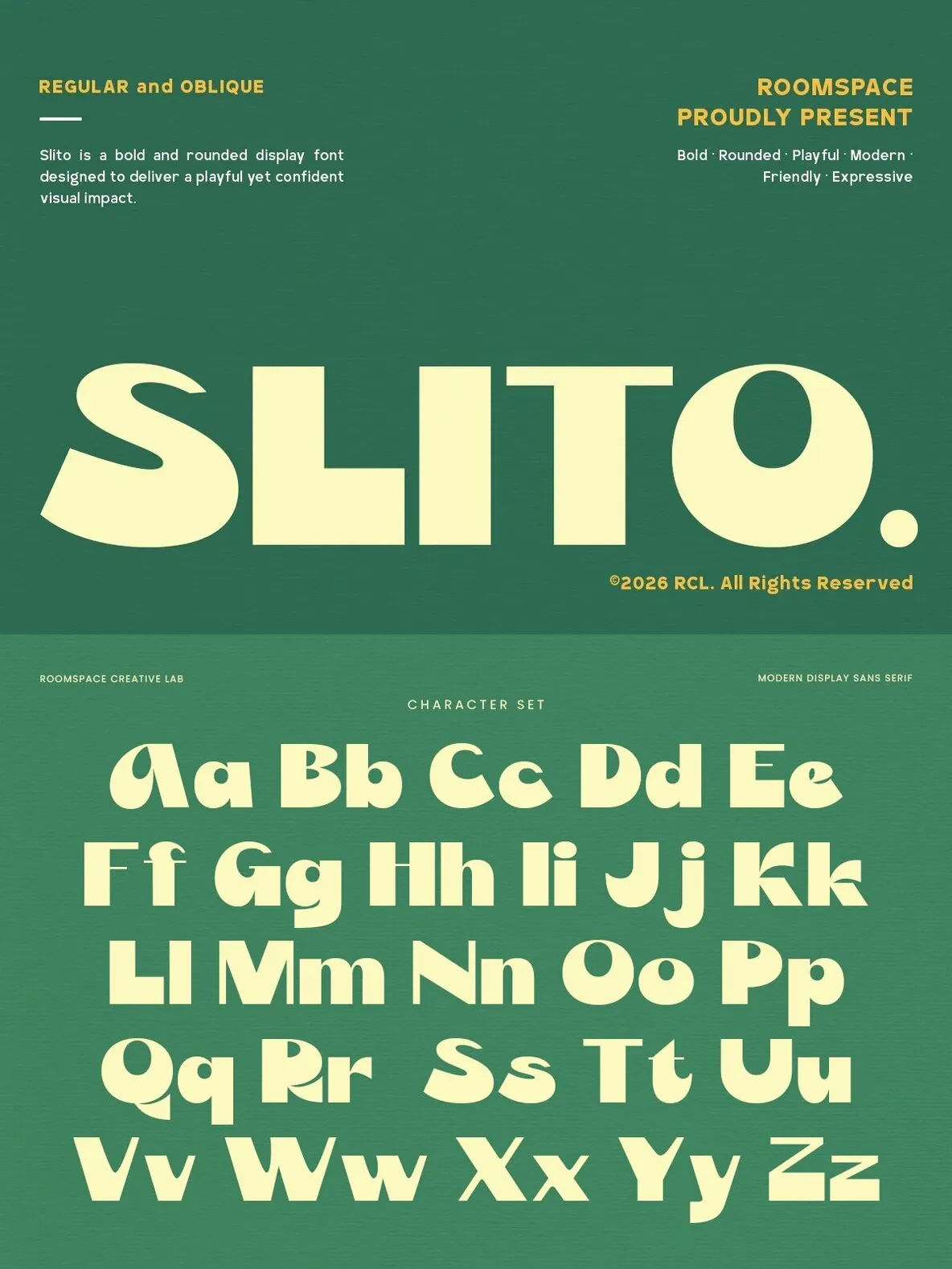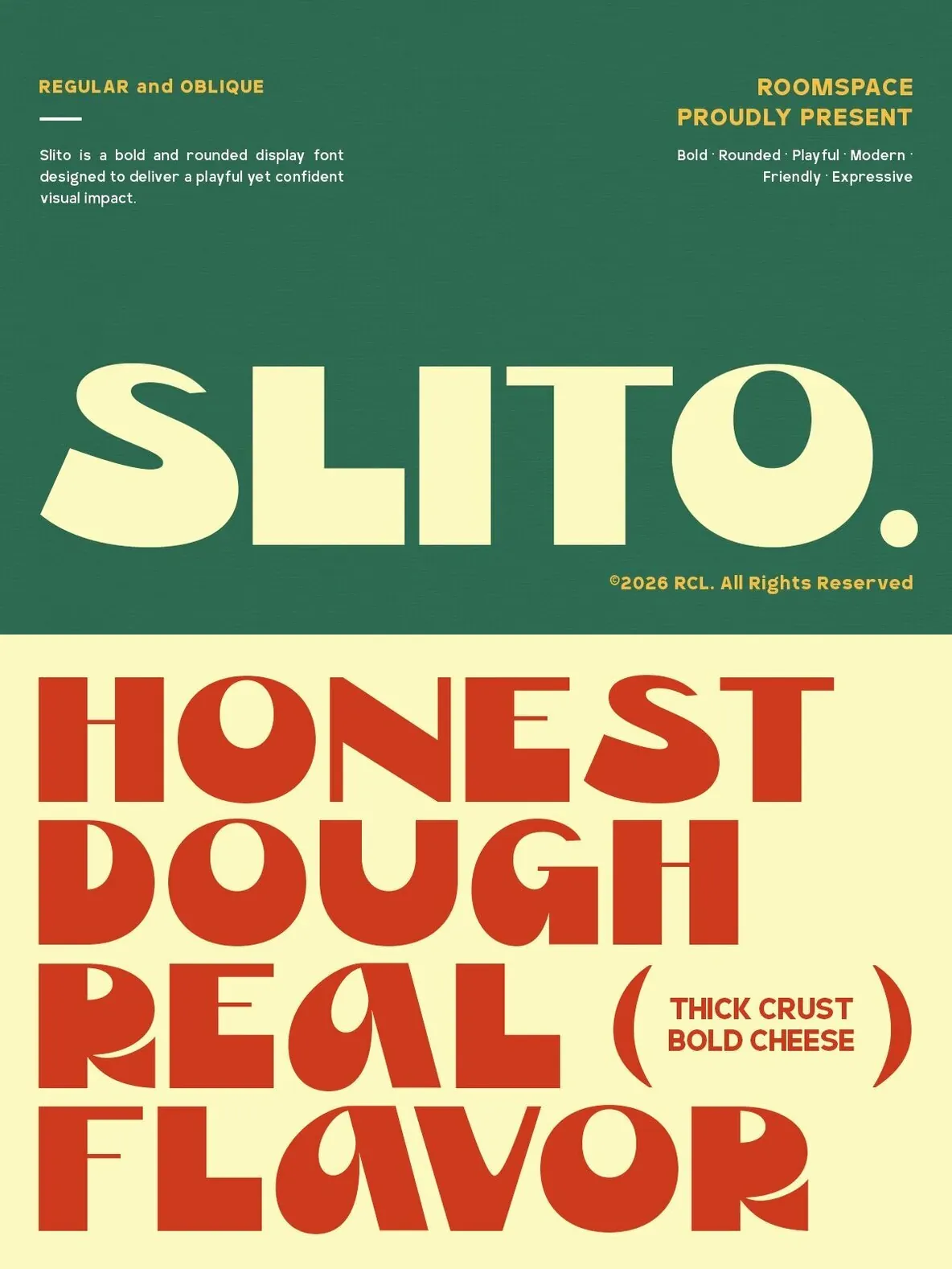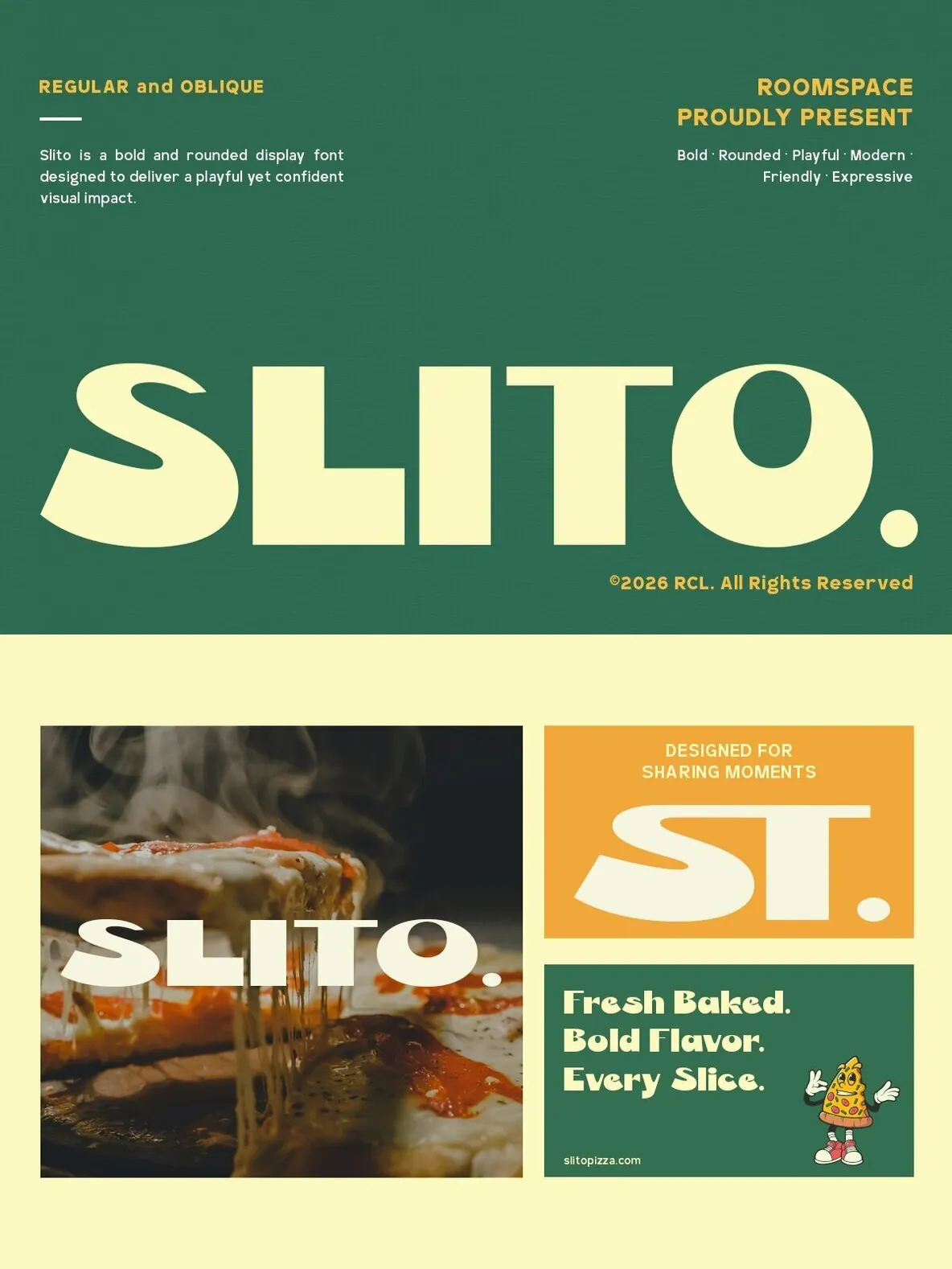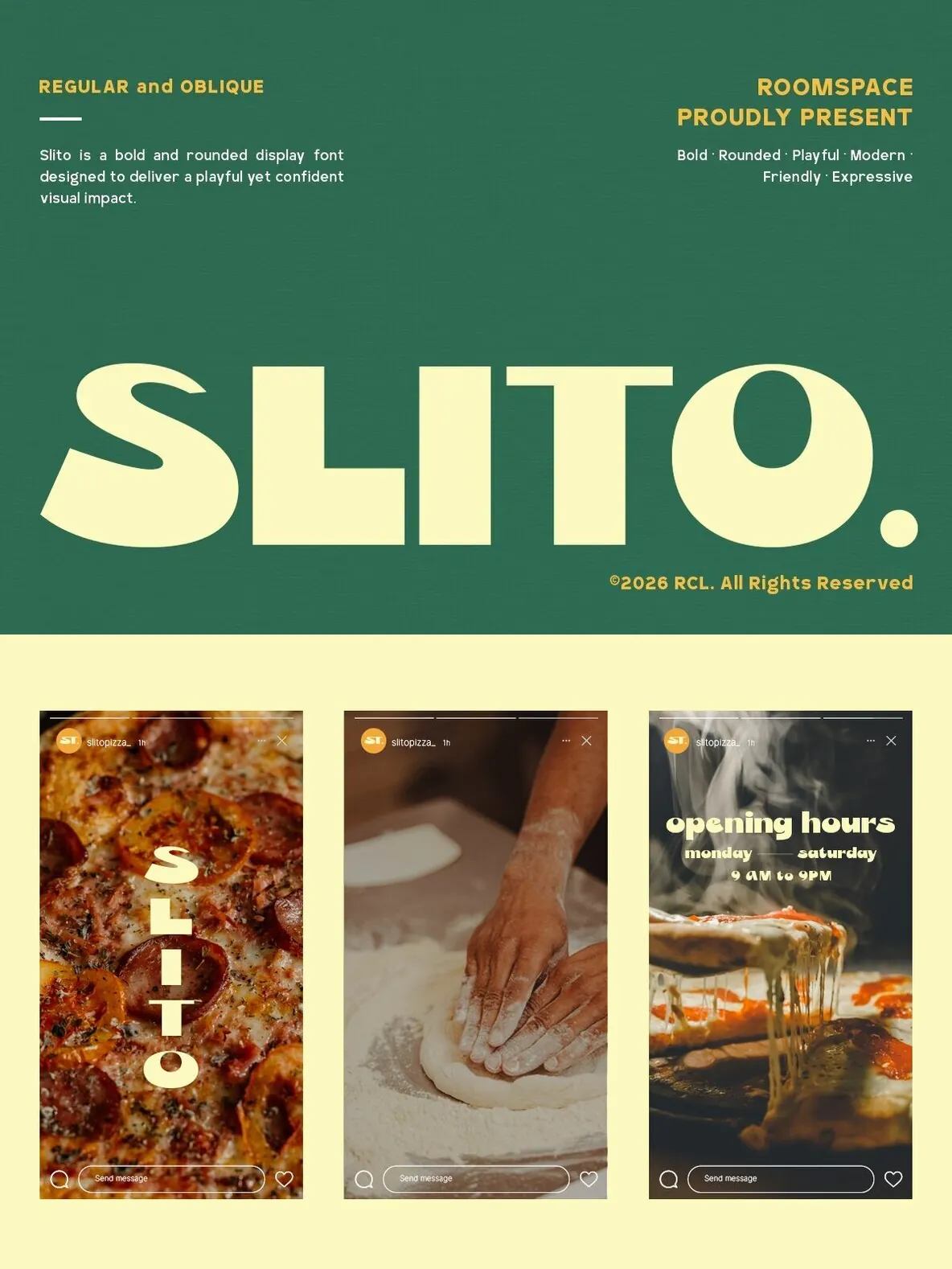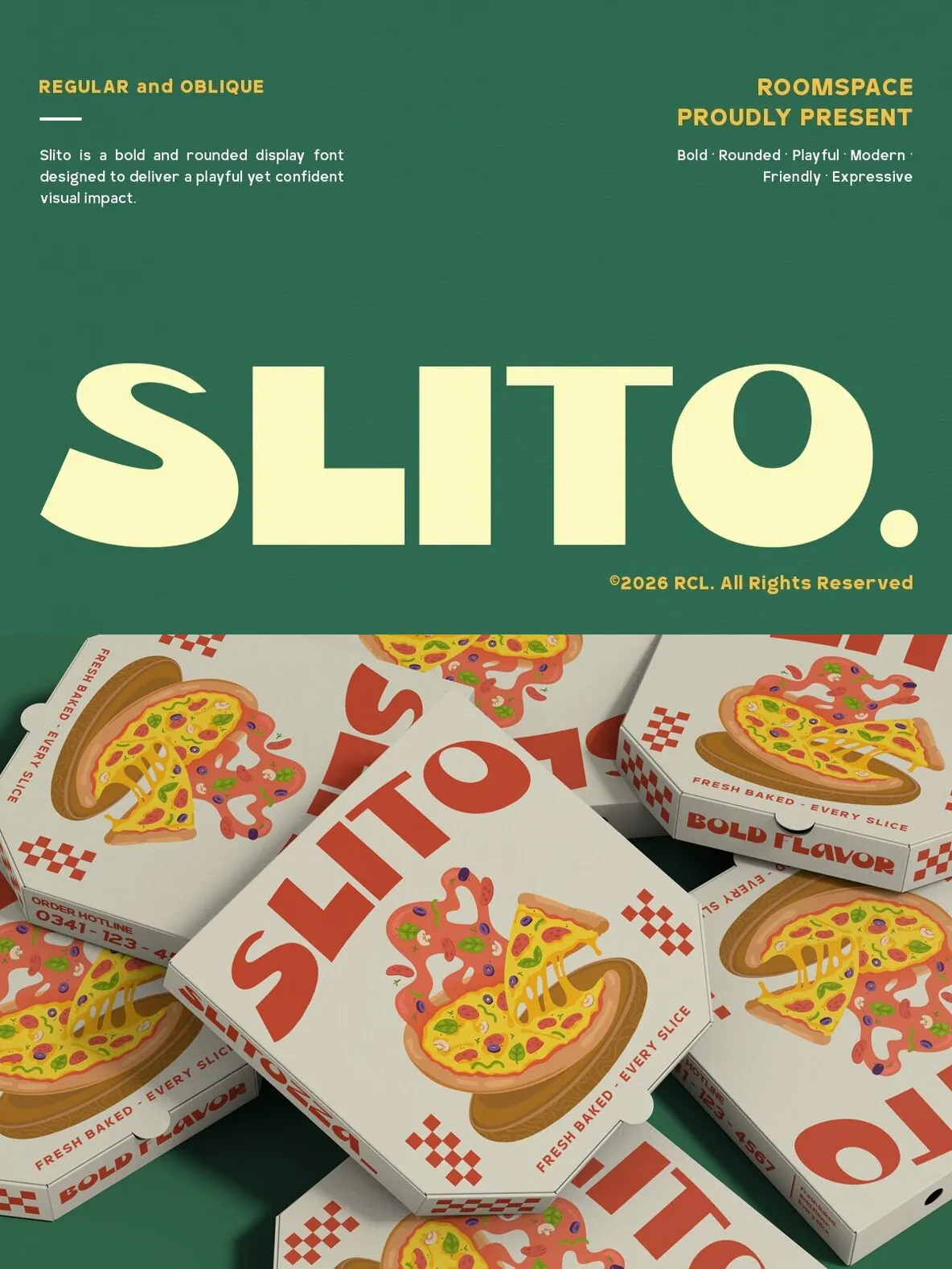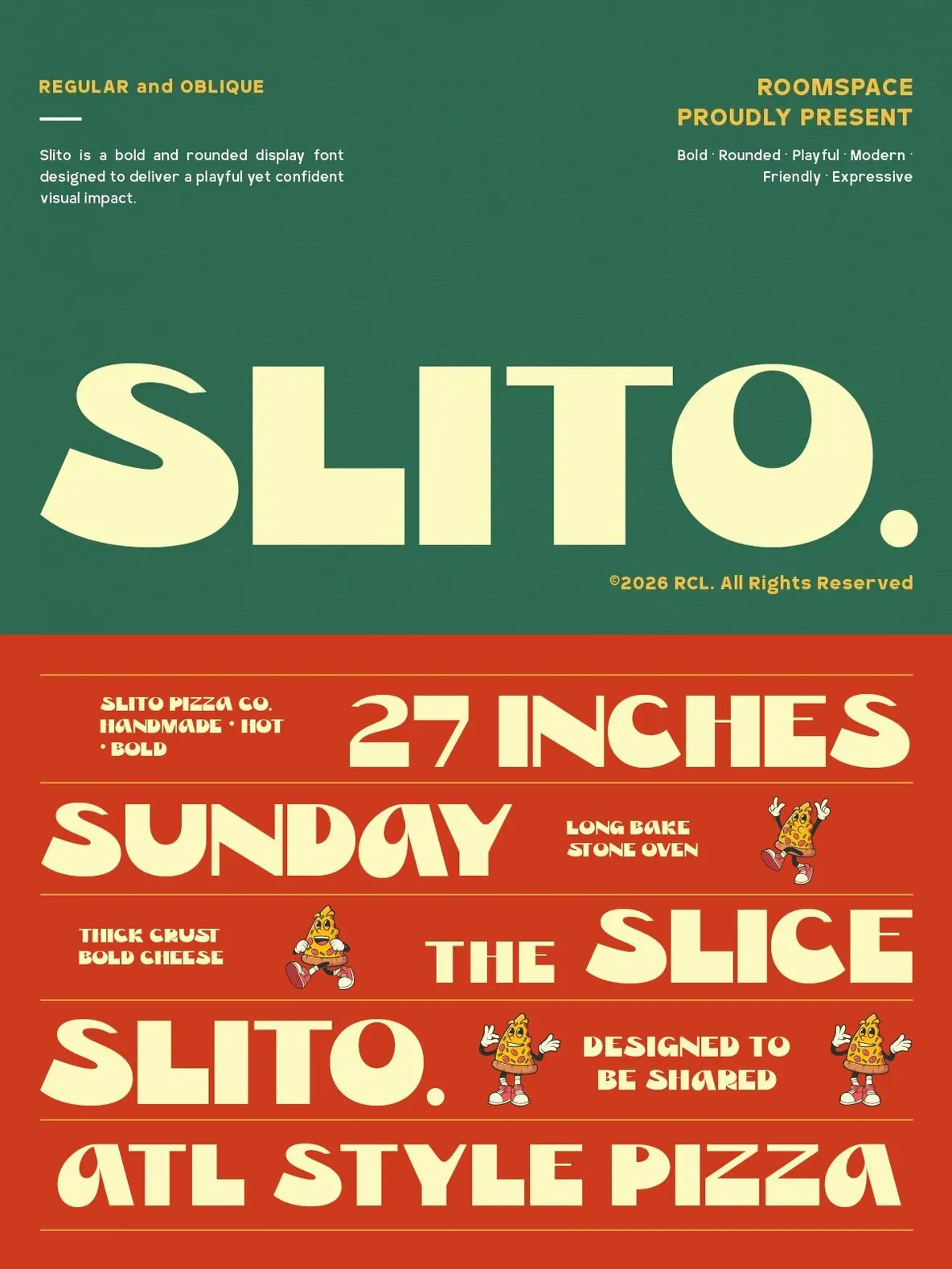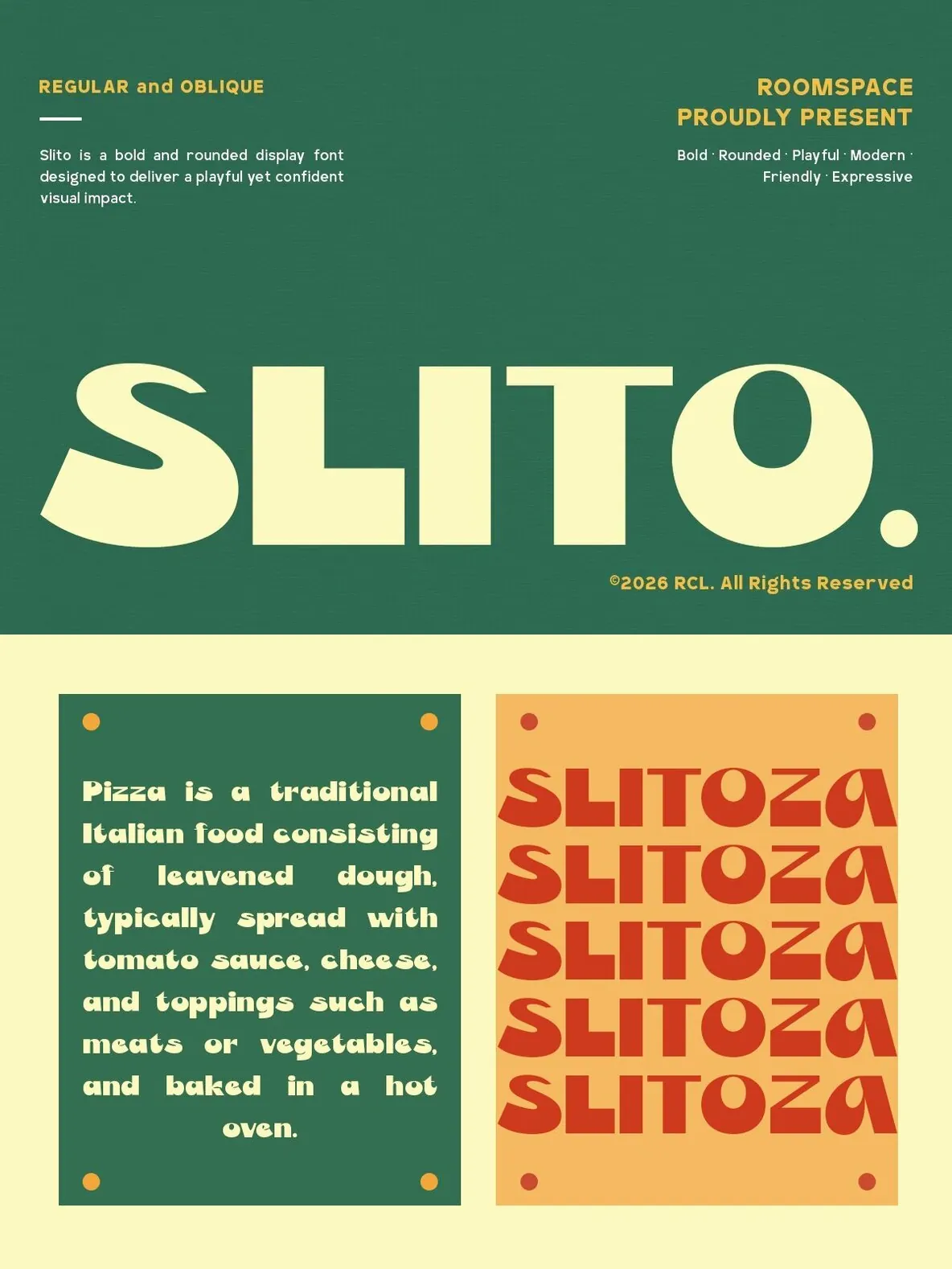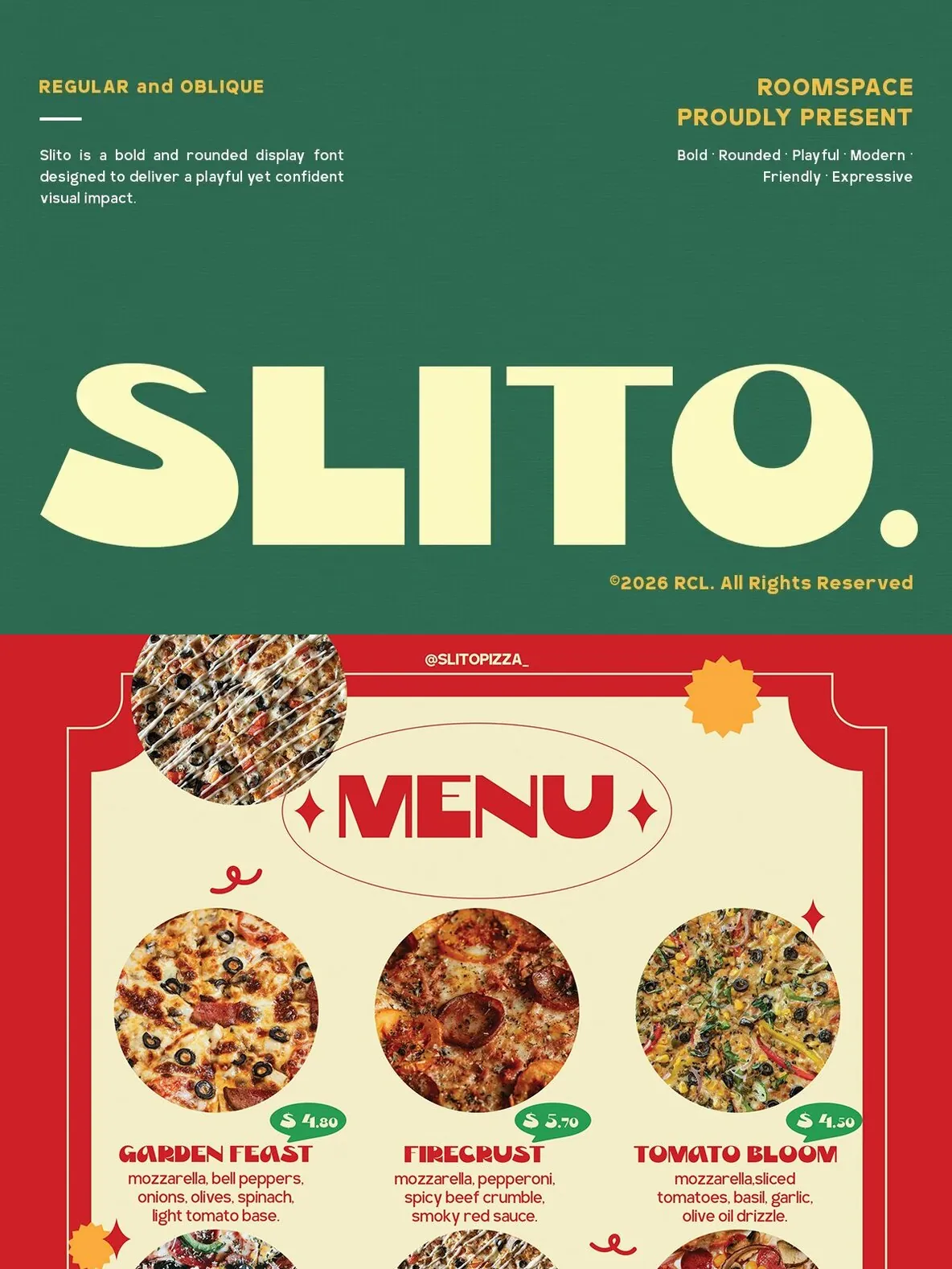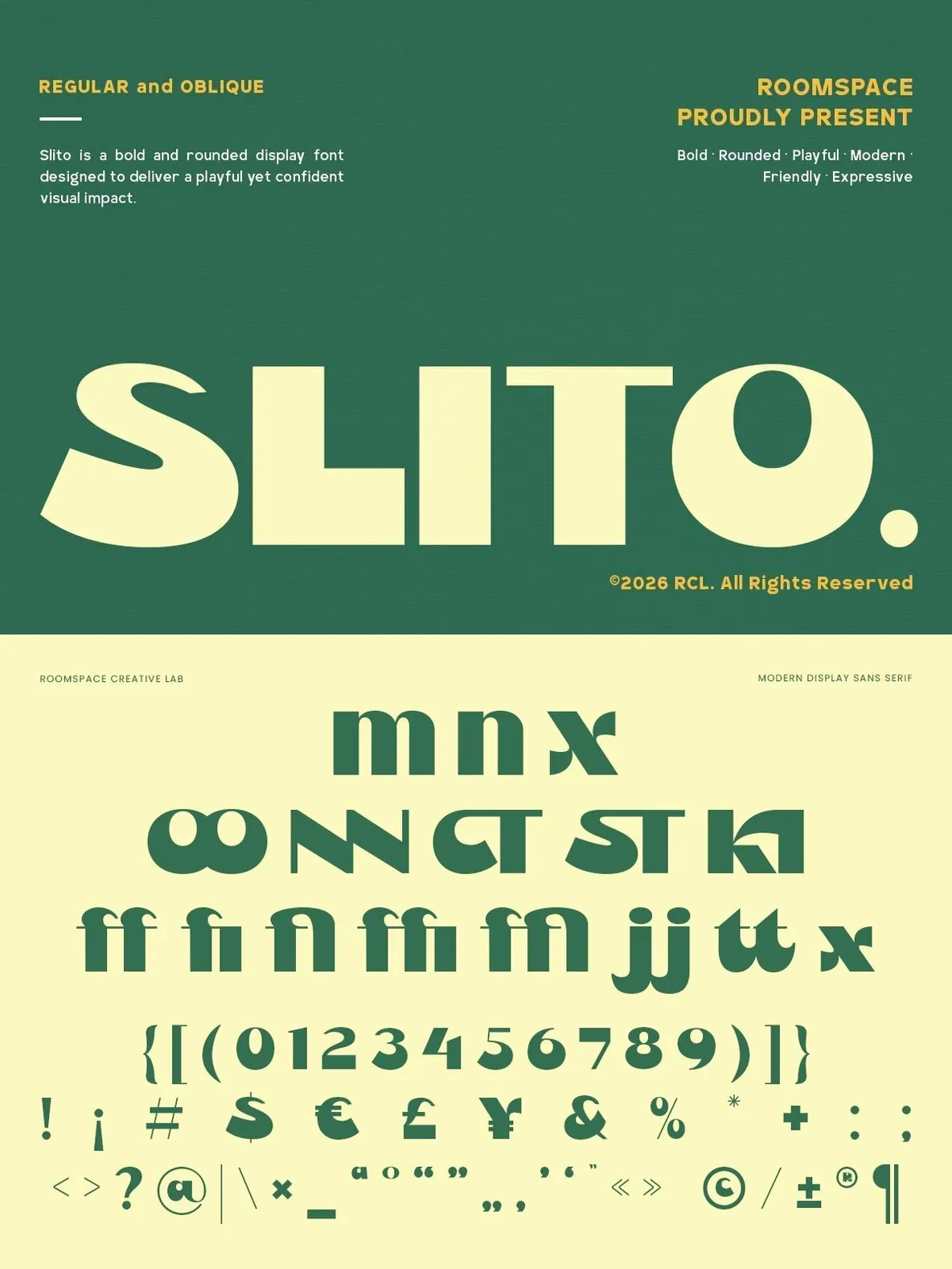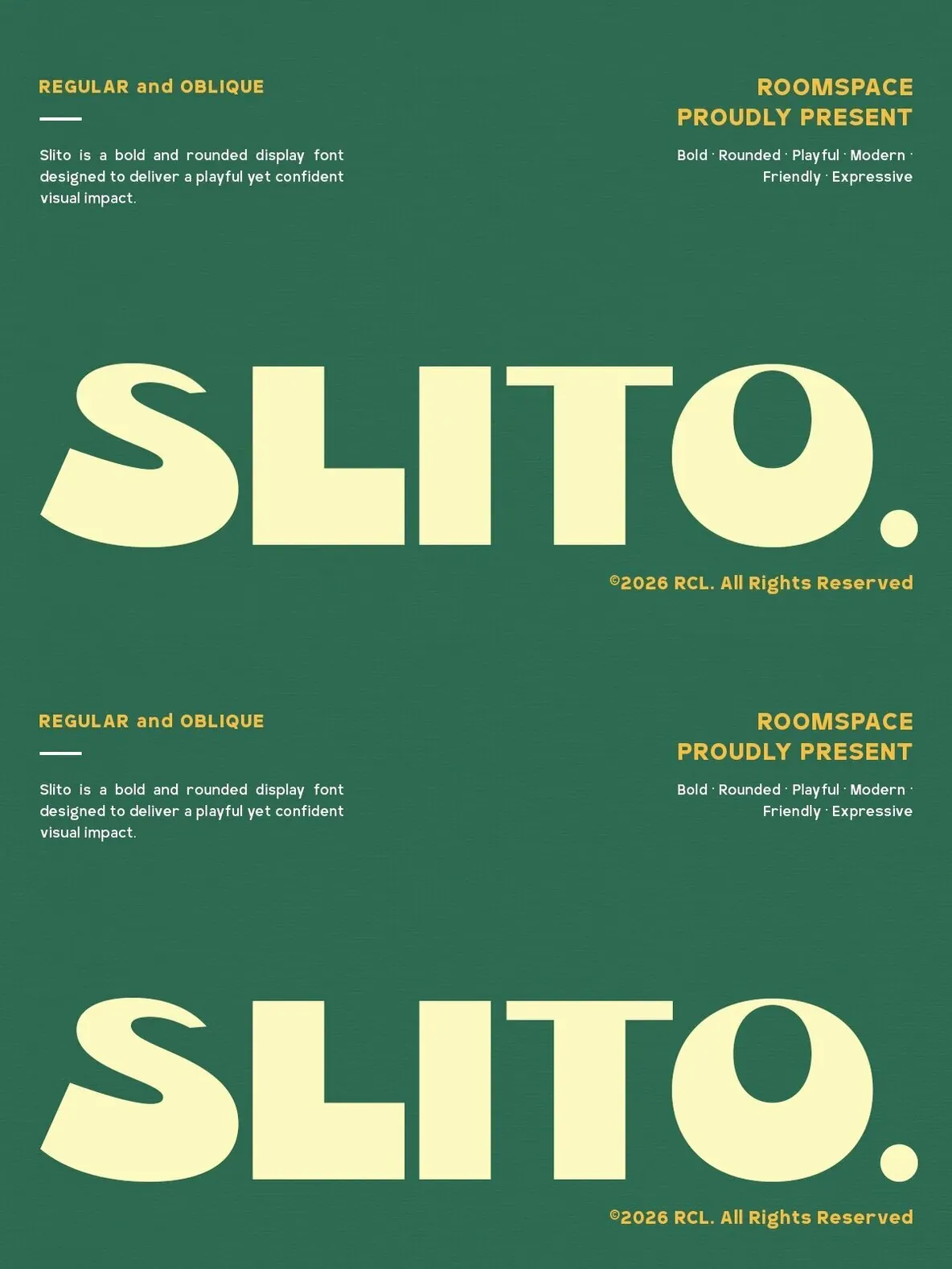
Slito: Bold Rounded Display Font with Friendly Modern Appeal
Slito is a bold rounded display font designed to introduce a playful yet assured visual voice. Its soft curves and wide letterforms convey personality and clarity, making it well-suited for projects requiring both approachability and strong presence. Available in Regular and Oblique styles, Slito supports multilingual characters to accommodate diverse creative needs.
Its design combines smooth curves with clean spacing, delivering expressive yet legible typography. Slito’s friendly modern tone adapts efficiently across branding, packaging, posters, logos, social media graphics, and striking headlines.
Regular and Oblique styles
Bold rounded display design
Uppercase and lowercase characters
Multilingual support
Clean spacing and smooth curves
Ideal for branding, packaging, posters, logos, social media, headlines, advertising, and creative design projects requiring distinct typographic presence.